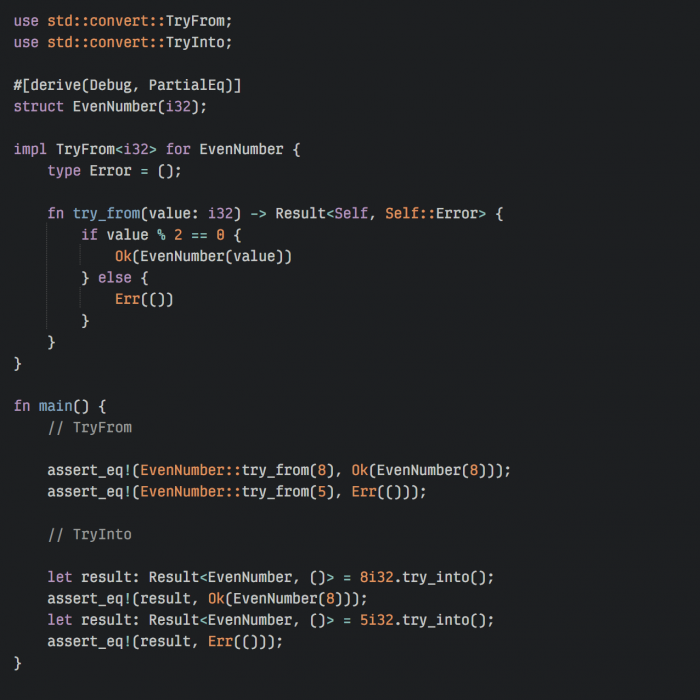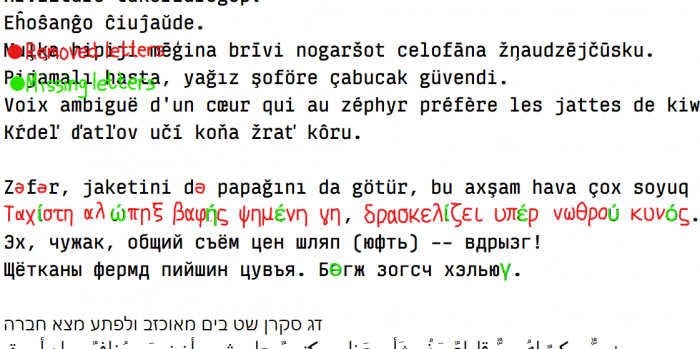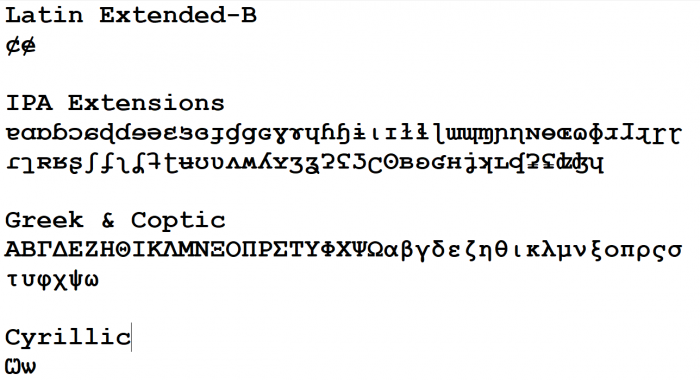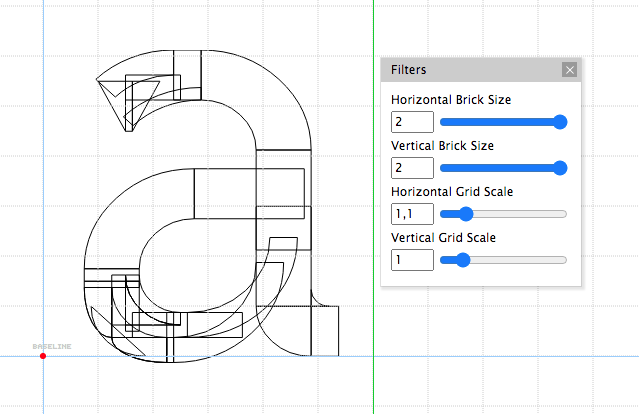
A font i have been working on for a while, but with some characters removed, because it seemed like it was not going to be finished in a while. I just wanted to publish this first
So clean font in Fontstruct - it's looks like magic. But. З and Э with bottom serif at first seems strange, but quickly get used to. I'm not sure about the length of д щ ц descenders - usually they are shorter than ф р have, but in the code maybe these will be more visible. Still, I tried to make д more symmetrical, so it is not pressed to the right edge. The rest it is a fantastic font that I applaud.
This is ridiculously good. I do have minor concerns as to how hinting is going to look like with typical OS (ClearType) rendering, but overall I'm going to give it a shot and put it in my Sublime configs in place of JetBrains Mono and my own as of yet unreleased monospaced monstrosity. Besides, not trying to be too nitpicky, but if it wasn't a coding-optimized typeface, such inconsistency between terminals (slanted, unslanted... slab?) would garner some criticism... and I'm only saying that because this font is really punching above its weight, it definitely isn't amateurish at all. Shame that 1.1 grid scaling is never going to get you truly organic curvature, and that font files generated by FS don't have particularly well optimized contours. Yeah, I'm complaining, because I love it so much to the point of actually wanting to use it.
So clean font in Fontstruct - it's looks like magic. But. З and Э with bottom serif at first seems strange, but quickly get used to. I'm not sure about the length of д щ ц descenders - usually they are shorter than ф р have, but in the code maybe these will be more visible. Still, I tried to make д more symmetrical, so it is not pressed to the right edge. The rest it is a fantastic font that I applaud.
Nice monospaced, very well crafted. I'm with D. Sychiov about these cyrillic glyphs, IMHO.
oh my god this is great! fontstruct fonts have gotten so much better in the 5 years since i last fontstructed seriously
thai too??? thats so cool!!!
Very cool monospace indeed. And big amount of letters. I really like this one
This is ridiculously good. I do have minor concerns as to how hinting is going to look like with typical OS (ClearType) rendering, but overall I'm going to give it a shot and put it in my Sublime configs in place of JetBrains Mono and my own as of yet unreleased monospaced monstrosity. Besides, not trying to be too nitpicky, but if it wasn't a coding-optimized typeface, such inconsistency between terminals (slanted, unslanted... slab?) would garner some criticism... and I'm only saying that because this font is really punching above its weight, it definitely isn't amateurish at all. Shame that 1.1 grid scaling is never going to get you truly organic curvature, and that font files generated by FS don't have particularly well optimized contours. Yeah, I'm complaining, because I love it so much to the point of actually wanting to use it.
.....!!!!!!!!!
4x4 filters?
2:2 and nudging. Great work.
Well done!
Excellent, very good attention to details, highly readable, superb execution. I love everything about it!
WHY IS THIS SO SATISFYING I LOVE IT
WHAT
Looks like you removed the entirety of the basic Greek alphabet and ə, according to my test text.
Here is the list of removed characters.
How I got this list?
Ah ;)
But still-- why were some glyphs removed?
P.S. My point: I am finding the glyphs that were removed, not that there are empty glyphs...
VIVA
Update Anonoma Mono Characters:
FINISHED BY UILHBSG!
What dark magic did you do to create this masterpiece
2 - 2 filters + nudging